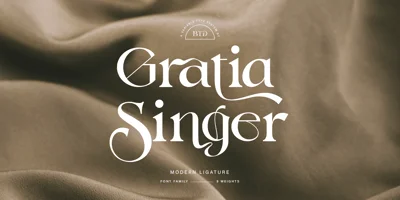
Gratia Font
Gratia Font is ideal for gratitude journal designs, mindfulness app interfaces, thankfulness greeting cards, spiritual wellness branding, meditation center signage, appreciation gifts, and graceful inspirational publications.
What makes Gratia Font exciting is its graceful appreciation and thankful elegance, featuring harmonious letterforms that capture the essence of gratitude while delivering peaceful visual comfort and spiritual authenticity.
The Gratia Font family includes Light, Regular, Medium, Bold, and Heavy weights, plus flowing variants and gratitude-inspired alternates that enhance the font's graceful character and mindful possibilities.
Gratia Font embodies the transformative power of gratitude and the gentle beauty of thankful living through harmonious typography design. This graceful typeface captures the serene essence of appreciation and the spiritual depth of grateful awareness, creating a peaceful visual language that speaks to mindful souls and spiritual seekers who value thankfulness, inner peace, and the life-changing practice of conscious gratitude. The font's graceful character and grateful appearance make it perfect for wellness brands, spiritual organizations, and mindfulness companies that want to communicate appreciation, serenity, and the profound healing power of gratitude practice.
Wellness organizations and spiritual brands consistently choose Gratia Font for projects that require authentic mindfulness credibility and graceful visual appeal. The typeface's harmonious construction and thankful personality make it exceptionally effective for meditation centers, gratitude journals, and wellness practitioners where appreciation and spiritual mindfulness are paramount. Each character has been designed with grateful precision to ensure peaceful appeal across all wellness applications and spiritual environments.
The mindfulness advantages of Gratia Font extend beyond its grateful appeal to include practical functionality for diverse spiritual applications. The font maintains excellent readability during contemplative practices while delivering the distinctive character that creates meaningful spiritual connections and resonates with audiences seeking authentic gratitude cultivation. Its comprehensive character set includes wellness symbols and spiritual elements that make it particularly suitable for mindfulness documentation and grateful communication.
Meditation centers, wellness journals, and spiritual organizations frequently incorporate Gratia Font into their brand identity systems because of its ability to instantly convey spiritual authenticity and grateful sophistication. The typeface's graceful aesthetic helps establish credibility in wellness markets while appealing to practitioners who value mindful living, spiritual growth, and the transformative experiences that come from daily gratitude practice and conscious appreciation.